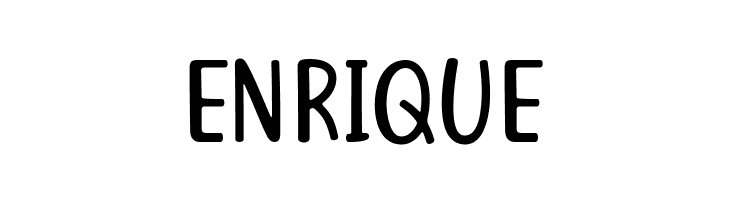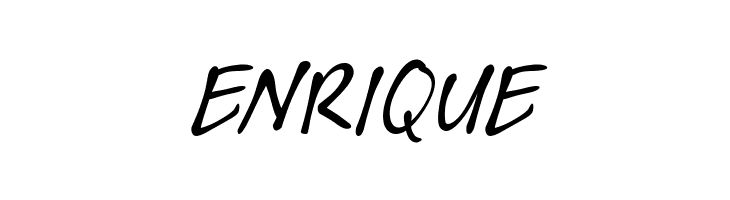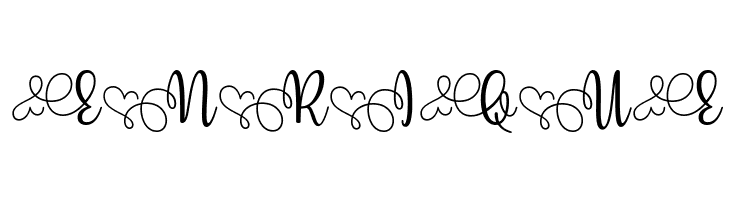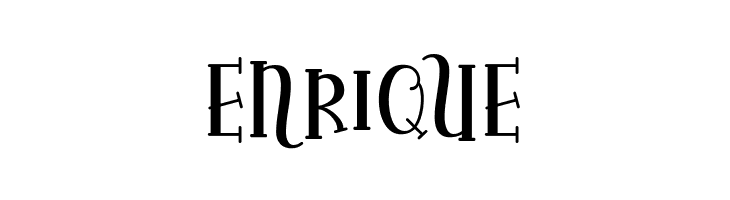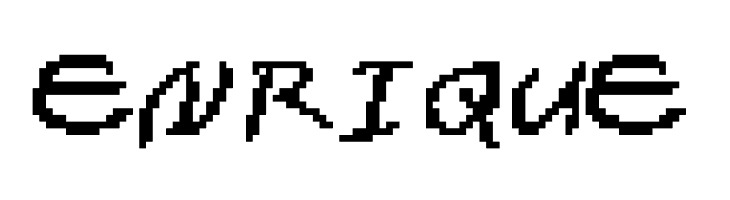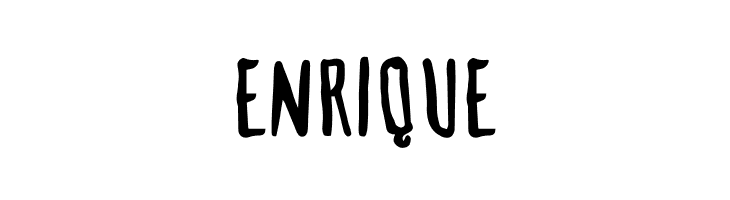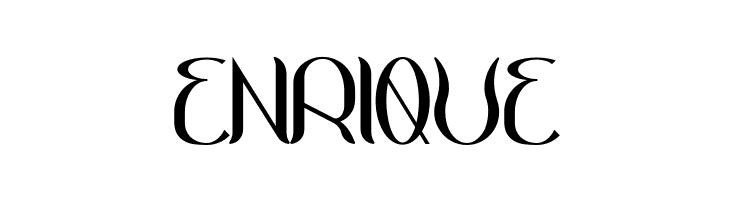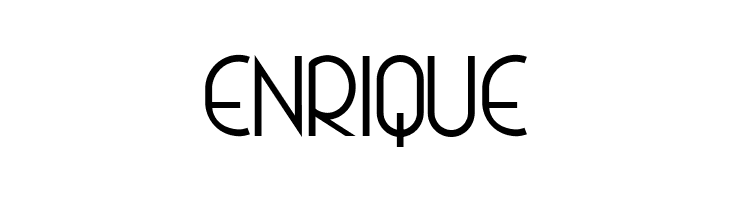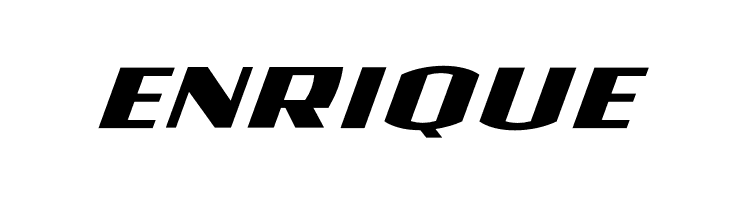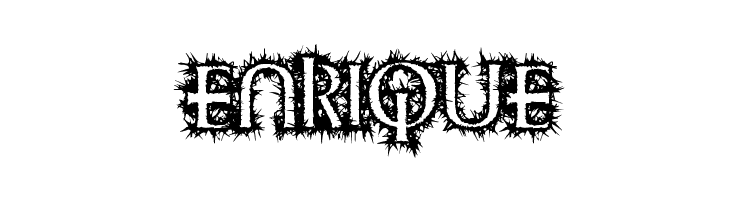
A playful, handwritten font with rounded edges and a casual style.
A playful, bold font with whimsical curves and a cartoonish style.
A bold, geometric sans-serif font with a modern and structured design.
A modern, geometric font with clean lines and consistent stroke width.
An ornate, decorative font with intricate floral designs around each letter.
An abstract, decorative font with bold, angular strokes and intricate details.
A playful and whimsical font with rounded, hand-drawn letterforms.
A thorny, gothic-style font with intricate, jagged edges.
A playful, hand-drawn font with a sketch-like, textured appearance.
A playful, hand-drawn outline font with wobbly, uneven lines.
A bold, italicized font with a dynamic and modern style.
A tall, slender, and elegant font with a modern minimalist style.
A playful, hand-drawn font with an organic and dynamic style.
A bold, geometric font with sharp angles and a modern, edgy style.
A modern, decorative font with elegant curves and geometric shapes.
A decorative font with ornate swirls and embellishments for a whimsical look.
A bold, playful font with exaggerated serifs and a whimsical style.
A graffiti-inspired font with jagged, energetic strokes and an urban vibe.
A decorative, distressed font with a grunge-like, edgy appearance.
A modern, geometric font with clean lines and uniform stroke widths.
A bold, intricate blackletter-style font with gothic and medieval influences.
A futuristic, geometric font with sharp angles and a bold, modern style.
A bold, playful font with a hand-drawn, irregular style.
A festive font with characters inside Christmas light bulb shapes.
A playful, festive font with characters encased in Christmas light shapes.
A pixelated, retro-style font with a tech-inspired aesthetic.
A modern, geometric font with clean lines and a minimalist style.
A casual, handwritten font with smooth, flowing strokes.
( 7NTypes - Situjuh Nazara - 7ntypes.com )
A playful and elegant script font with decorative swirls and a handwritten touch.
( Anja Pöchhacker )
A bold, italic script font with a flowing, cursive style.
( 7NTypes - Situjuh Nazara - 7ntypes.com )
A whimsical and playful font with elegant curves and sharp edges.
( Chequered Ink - chequered.ink/ )
A bold, geometric font with arrow-like extensions for a dynamic look.